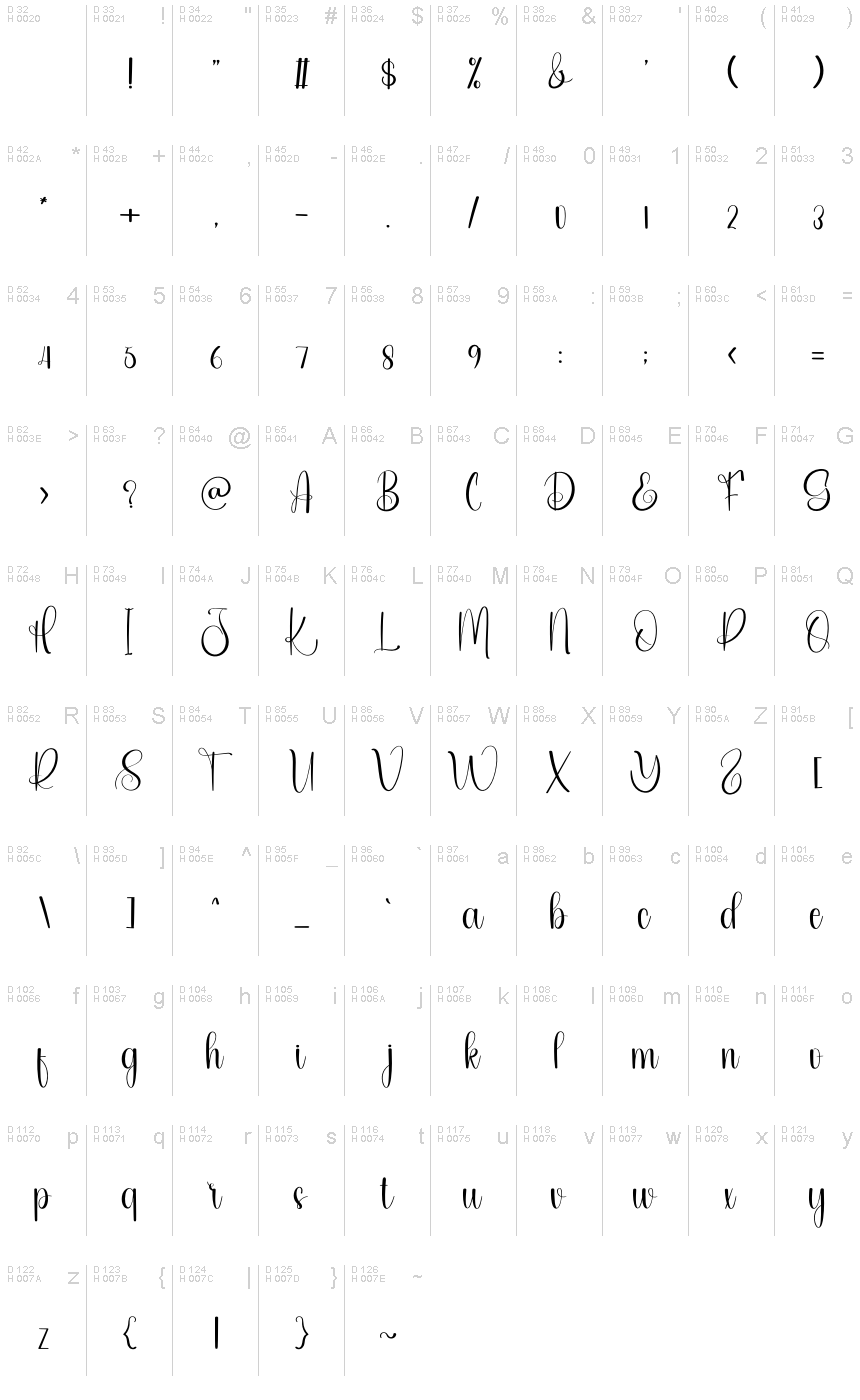
Snowhouse
Snowhouse, a creation by PiPi Creative, stands out as a semi-light and semi-condensed handwritten font that brings a touch of personal flair to any project. With its elegant curves and playful yet sophisticated style, Snowhouse offers an aesthetic that feels both intimate and polished. This font exudes charm through its free-flowing handwriting style that mimics the nuances of personal script while maintaining the clarity and legibility necessary for diverse applications.
Ideal for invitations, branding, or editorial design, Snowhouse has the versatility to add a humanistic touch to digital designs or printed materials. Its semi-condensed width ensures it's an efficient use of space without compromising on readability, making it perfect for designers seeking to convey warmth and originality in their creations. The gentle weight of Snowhouse lends itself beautifully to designs that require a soft touch or an air of whimsy while still holding strong visual presence.